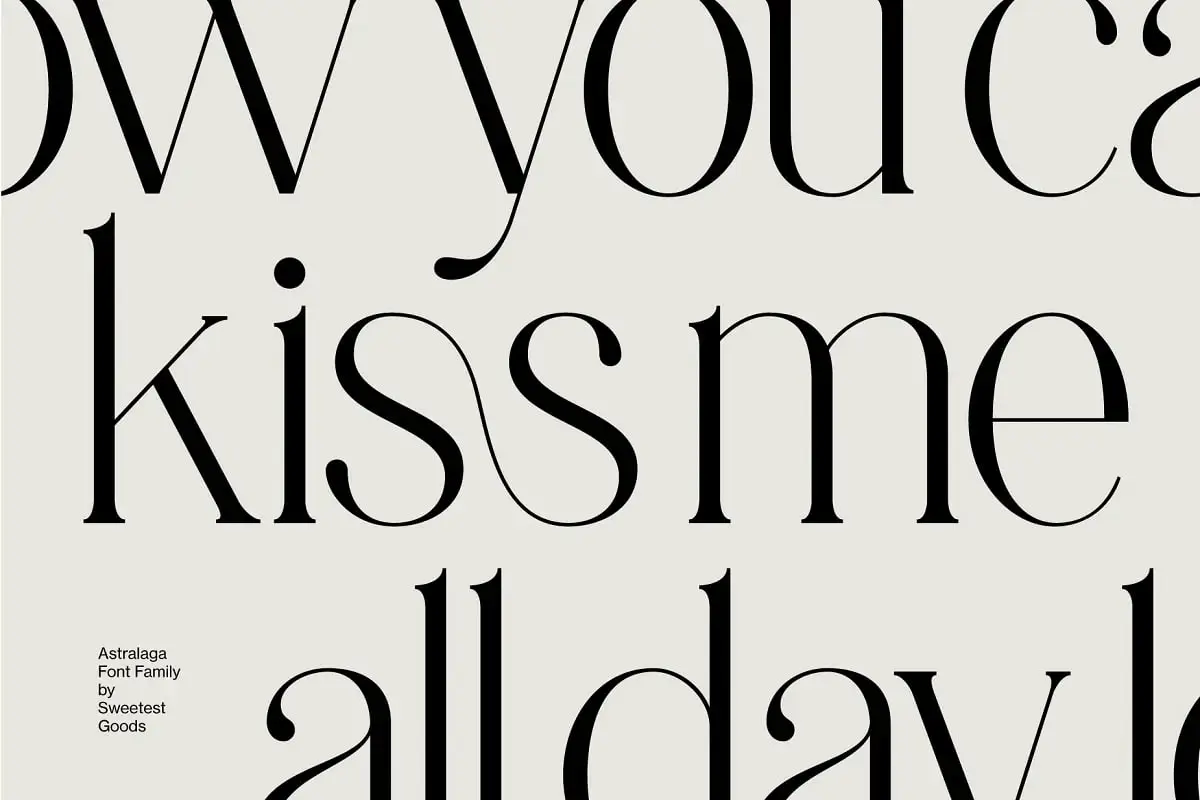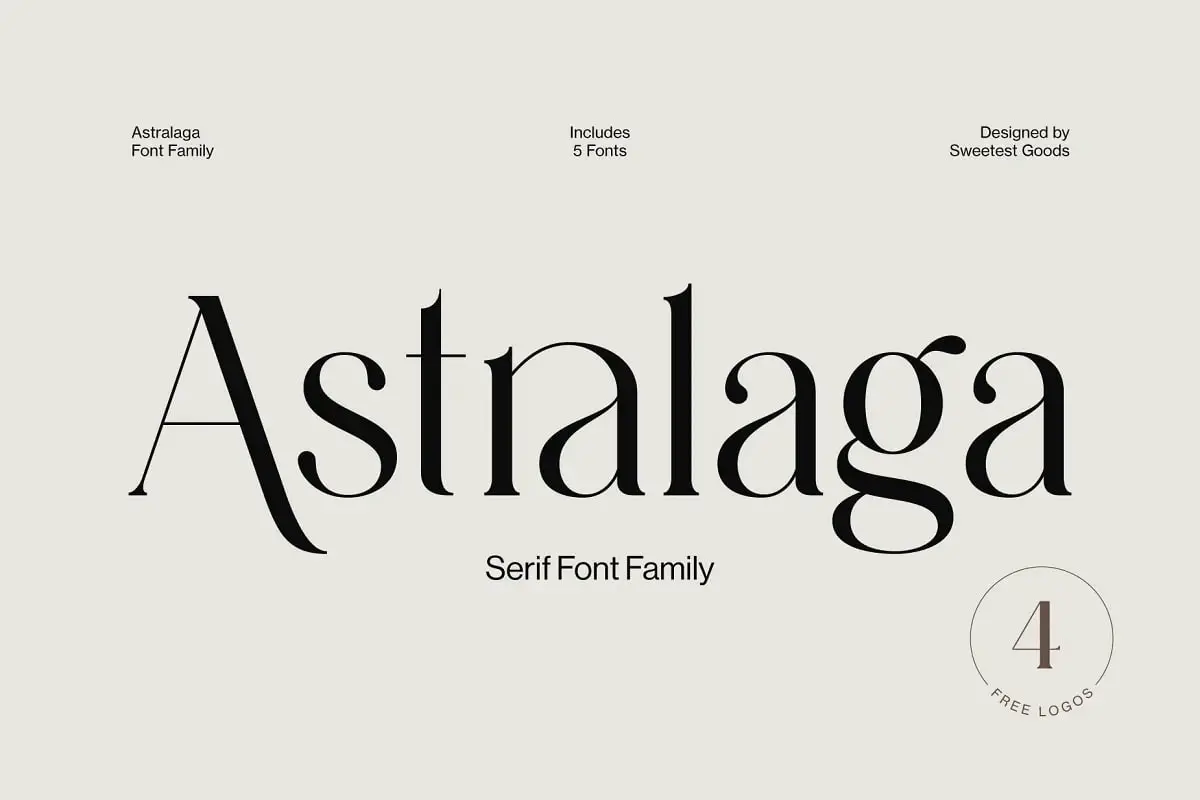
The Sweetest Goods Astralaga Elegant Font Family is a stunning collection of typefaces designed to bring sophistication and charm to your projects. This font family includes multiple styles and weights, making it versatile for a variety of applications.
- Styles: Regular, Bold, Italic, and more
- Weights: Light, Regular, Medium, Bold
- Ideal for branding, logos, and packaging designs
- Perfect for web and print applications
- Great for UI design and digital media